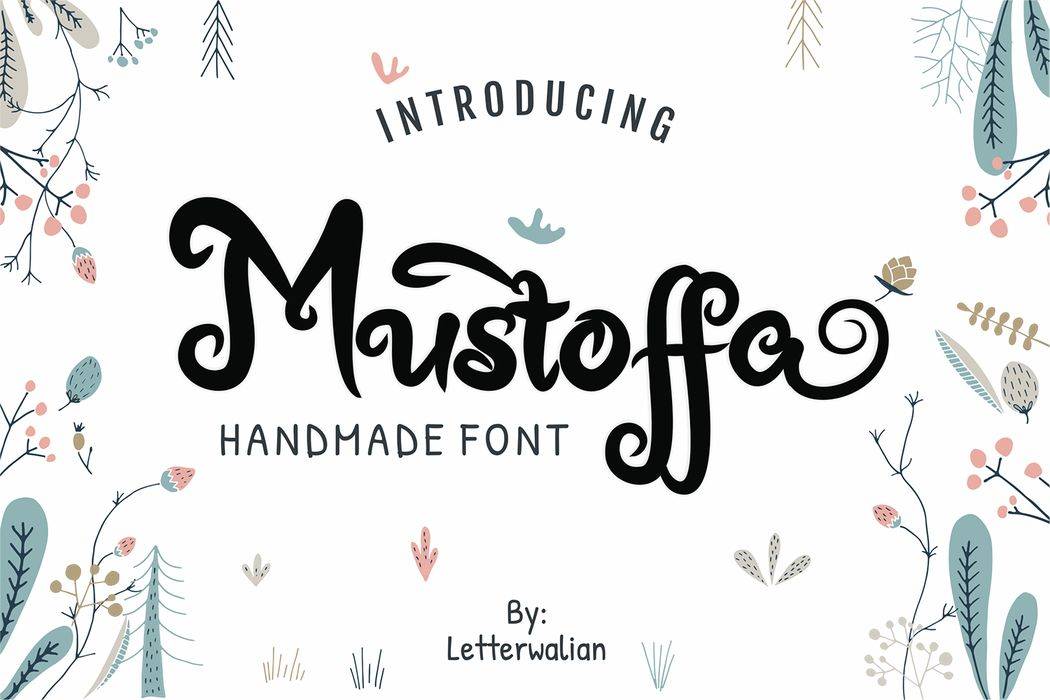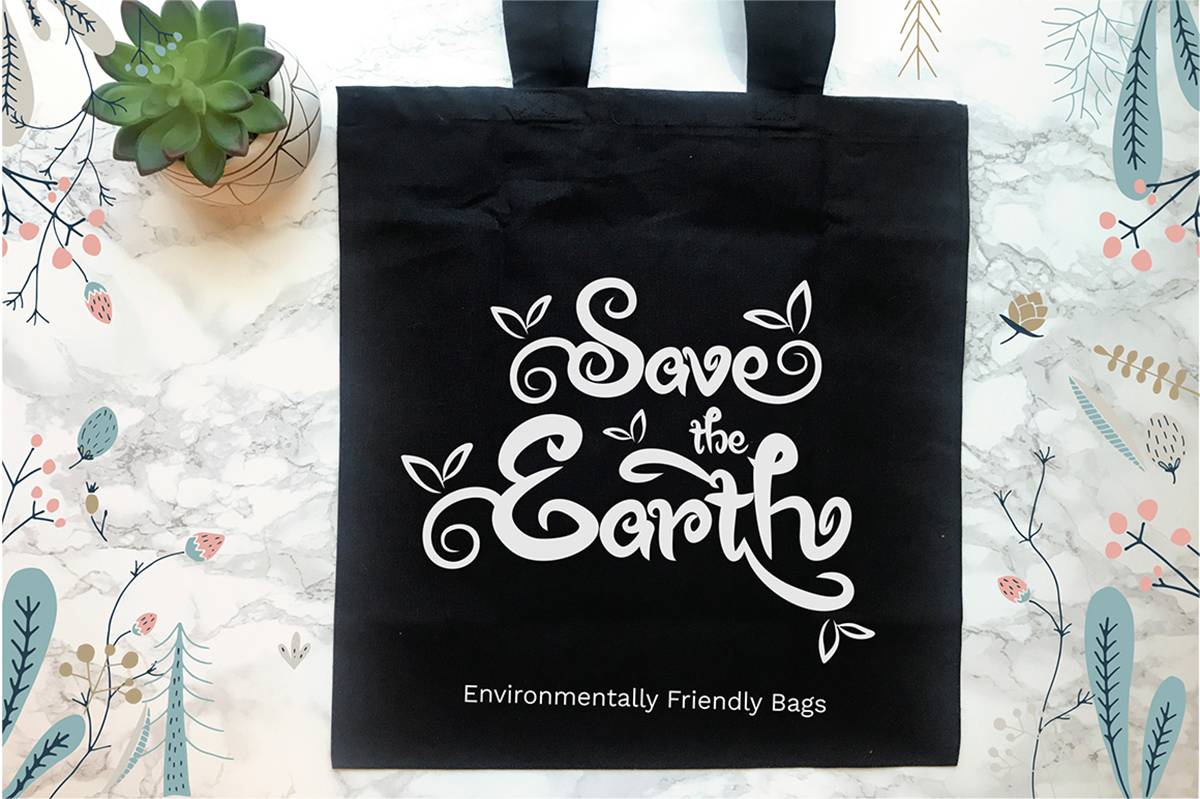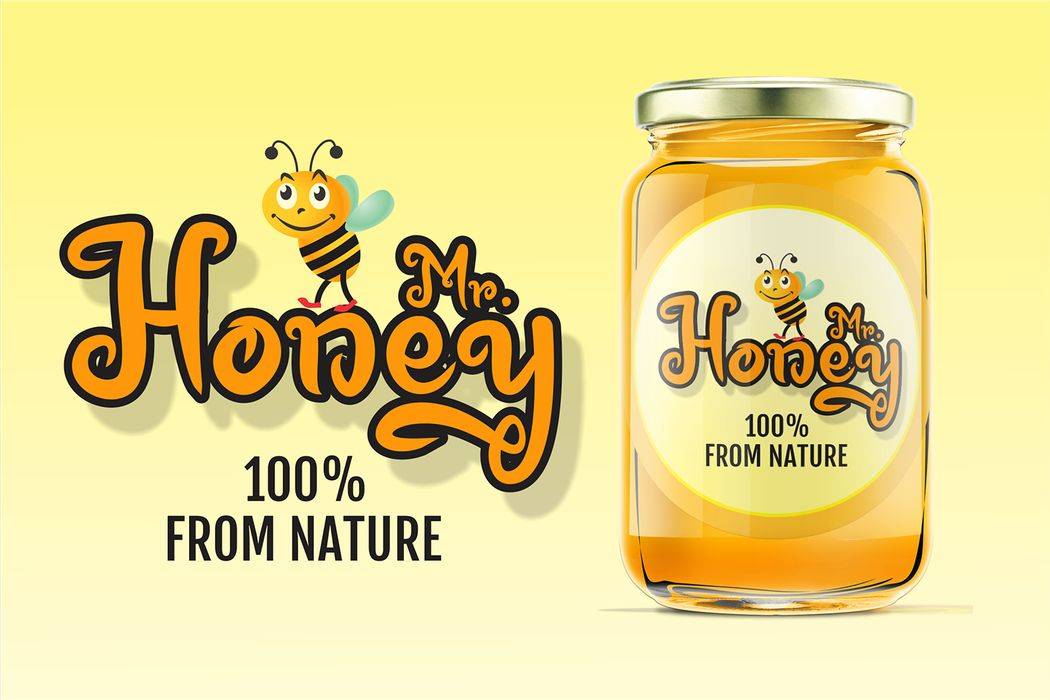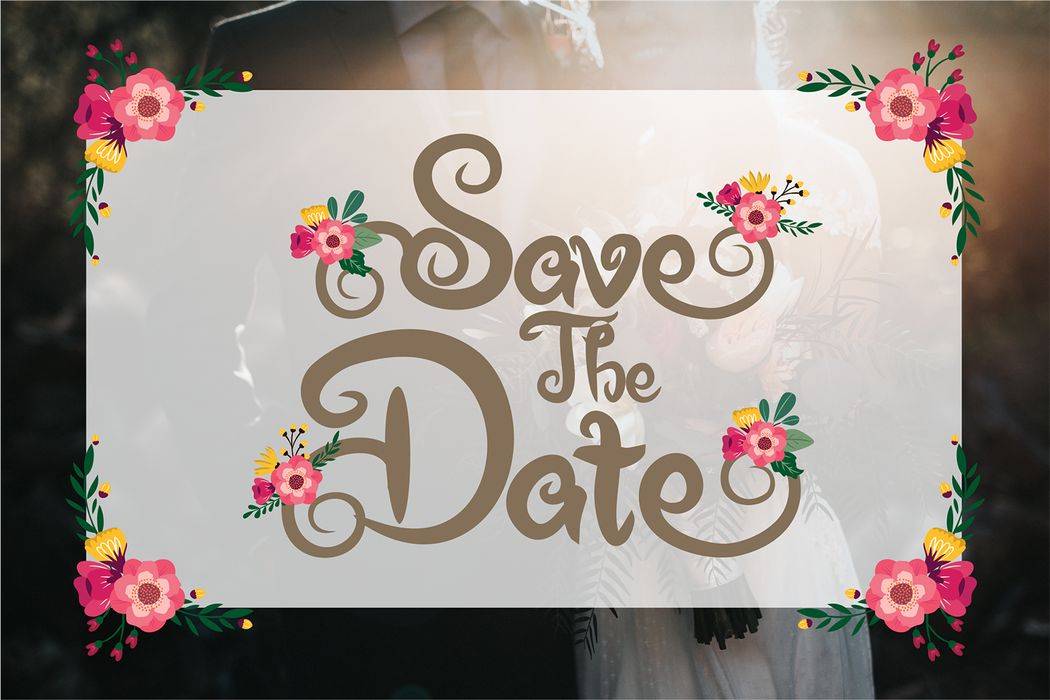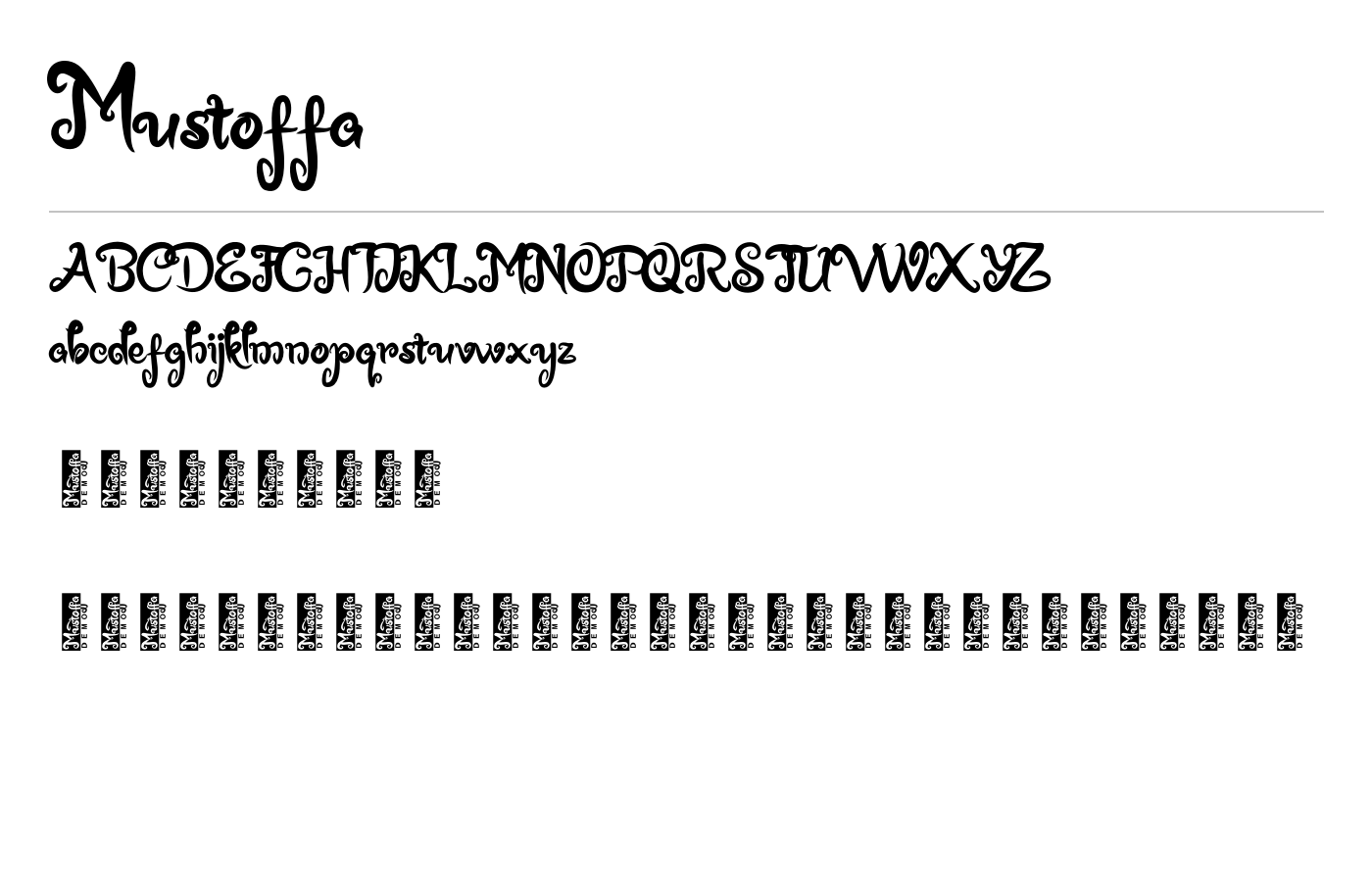
Mustoffa is a playful and decorative serif font featuring whimsical, curly strokes with a lively, hand-drawn feel. Its bold weight and unique letterforms, characterized by looped terminals and ornate details, make it ideal for creative branding, children’s projects, and festive designs where a fun and engaging personality is needed. This font works best in headlines and logos that aim to capture attention with a charming, artistic style.
Mustoffa Font
About Mustoffa Font